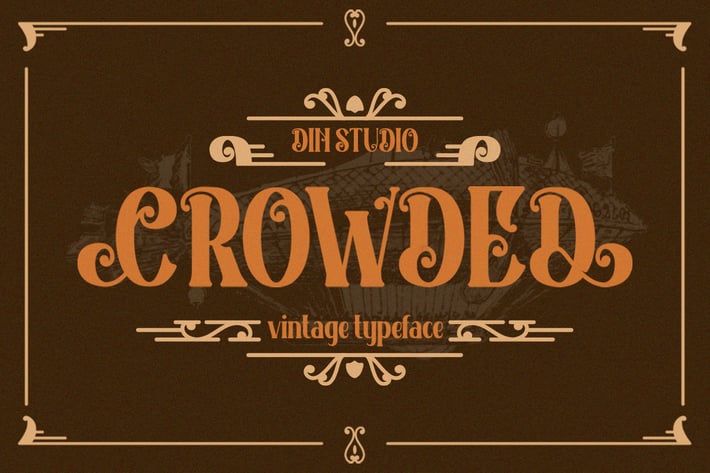
Crowded Vintage Font
Din-Studio
Crowded rounded vintage font was created by our talented artist with a full passion for vintage display.
You will find a fresh vintage sensation. Visit our gallery and enjoy the previews.
- Crowded Regular
- Crowded Ornament
- Accents (Multilingual characters)
- 16 Ligatures
- 79 Alternates
- Bonus ornamet